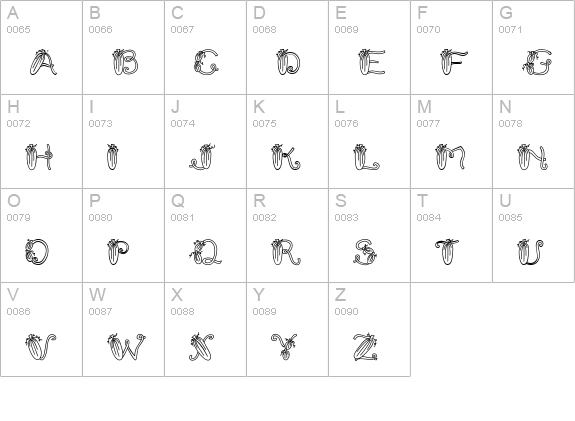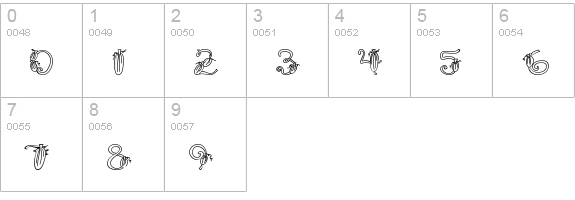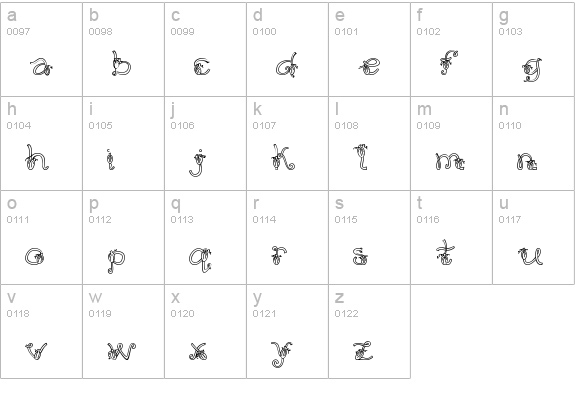
CK Pumpkin Patch Font Details
Introducing CK Pumpkin Patch font, a whimsical and charming typeface perfect for adding a touch of playfulness to your designs. This unique font features quirky pumpkin-shaped letters that are sure to catch the eye and bring a festive vibe to any project. CK Pumpkin Patch is ideal for Halloween-themed designs, fall promotions, greeting cards, and more. The best part is that CK Pumpkin Patch font is completely free to download at FontsMarket.com. Simply visit the website and grab this delightful font to add a creative twist to your projects. Don't miss out on the opportunity to enhance your designs with the fun and festive CK Pumpkin Patch font today!